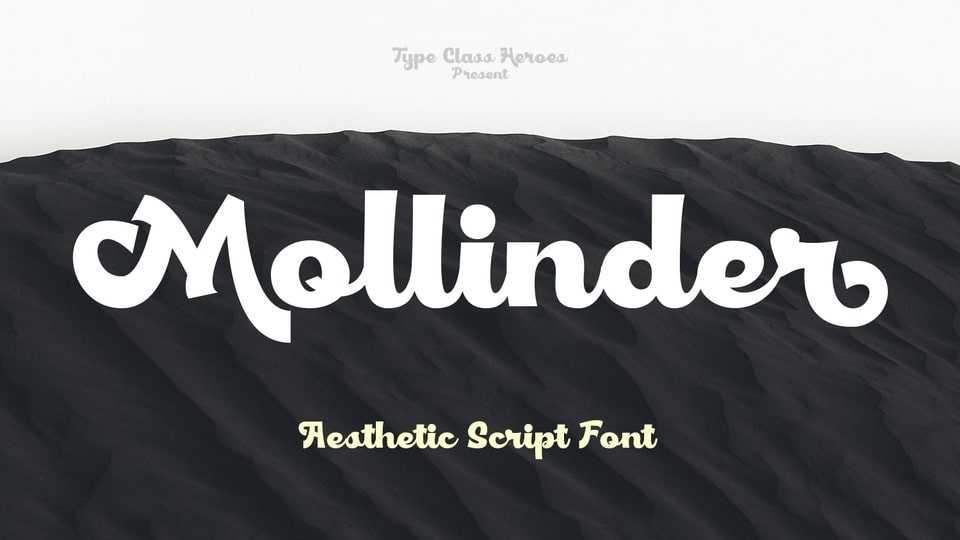
Download Mollinder font, an aesthetic script typeface come with a retro and refined style, you can explore and combine creating rhythm for comfortable reading.
Designer: TypeClassHeroes